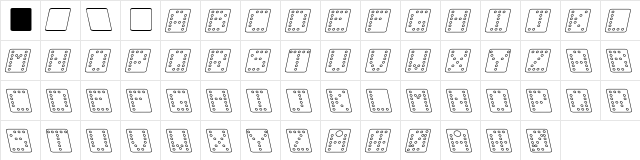
Domino square kursiv omrids Regular
Design Context for Domino square kursiv omrids Typeface
Domino square kursiv omrids is a composed and adaptable typeface that performs quietly and consistently across a wide range of design contexts. Its italic angle brings a sense of urgency and motion to the letterforms.
Pro Tip: Use Domino square kursiv omrids for emphasis, pull quotes, and subheadings where its slanted energy can add rhythm to the layout.